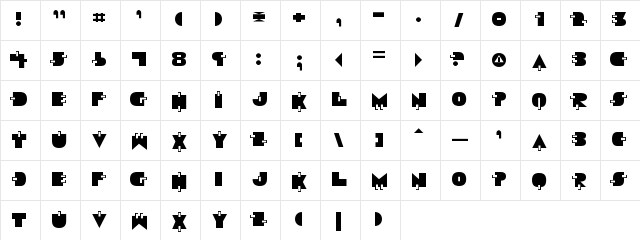
Video Star Regular Free Font
Video Star Regular
Complete Video Star Regular glyph index. Displaying only characters natively supported by Video Star Regular font.
Design Context for Video Star
Video Star is a composed and adaptable typeface that performs quietly and consistently across a wide range of design contexts.